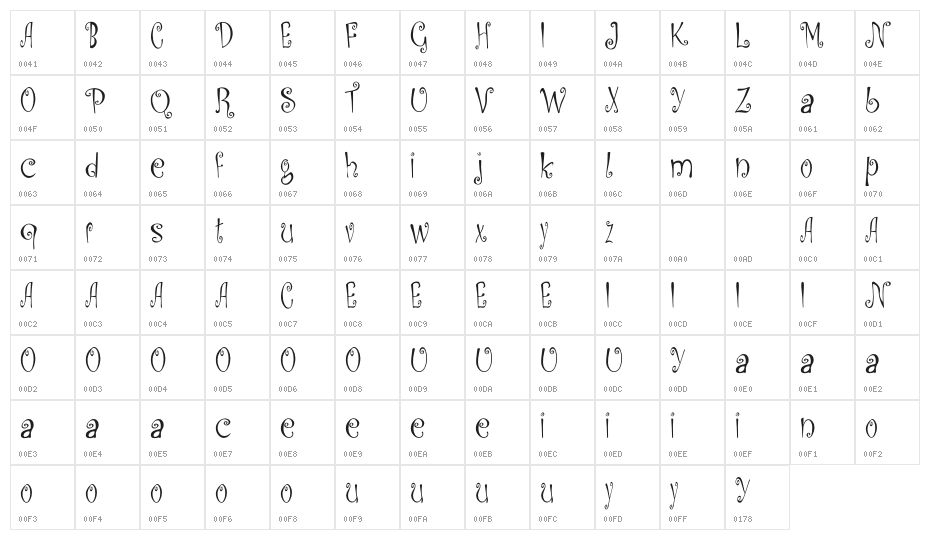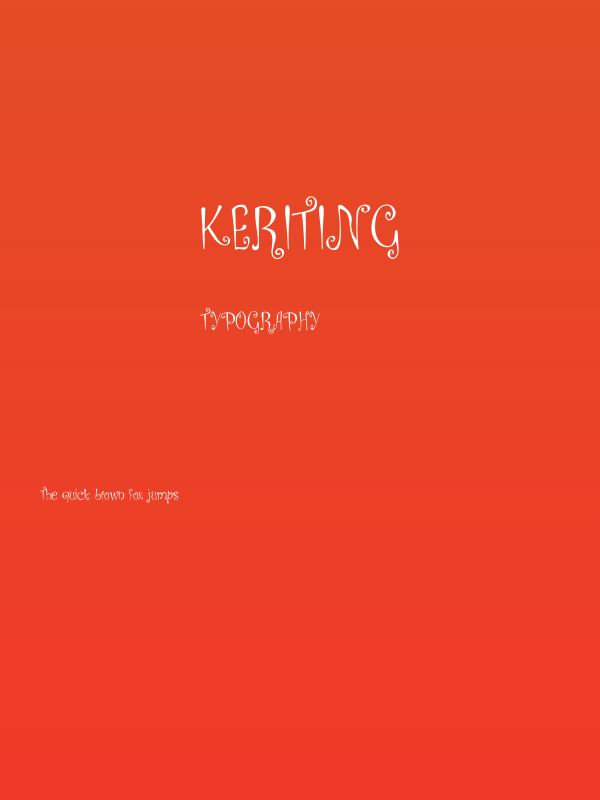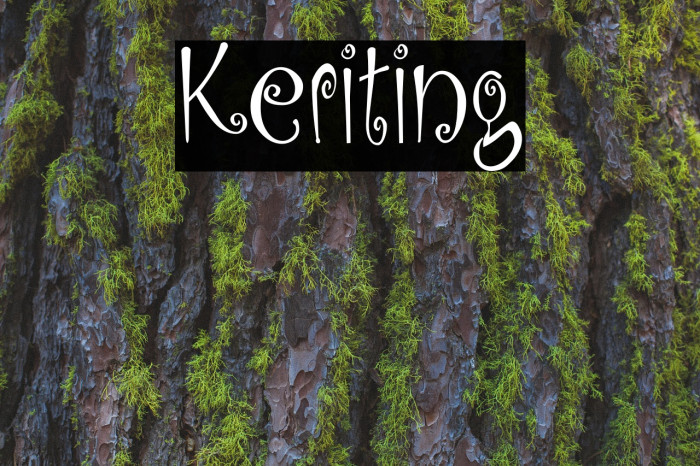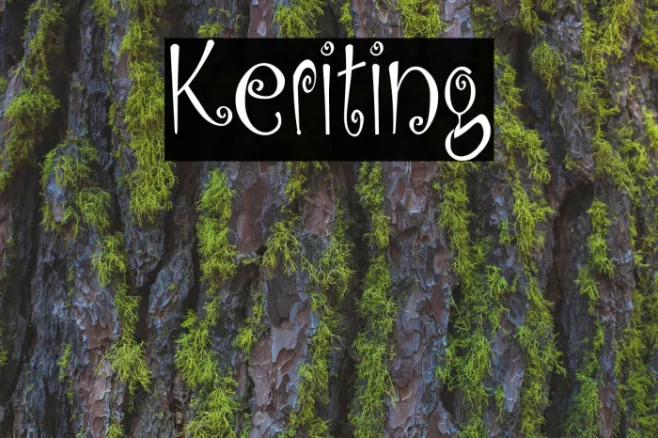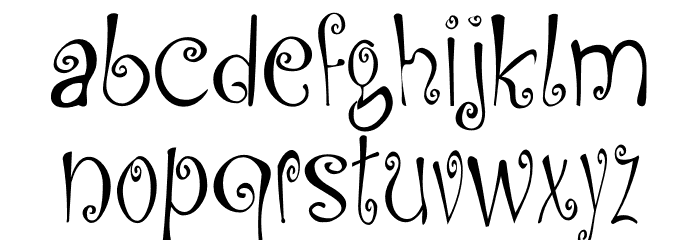
Keriting Font
Keriting Description
This whimsical and playful font features curly and swirling elements that give it a unique and artistic flair. The characters are designed with an exaggerated, decorative style, making them stand out with their intricate loops and curves. The uppercase letters are bold and expressive, while the lowercase letters maintain a consistent style with slightly more subtle embellishments. This font is perfect for creative projects that require a touch of fun and personality. The numbers and special characters are designed to match the overall aesthetic, ensuring a cohesive look across all text elements.
| Proposed Projects | Ideal for children's book covers, playful invitations, greeting cards, and creative branding projects. |